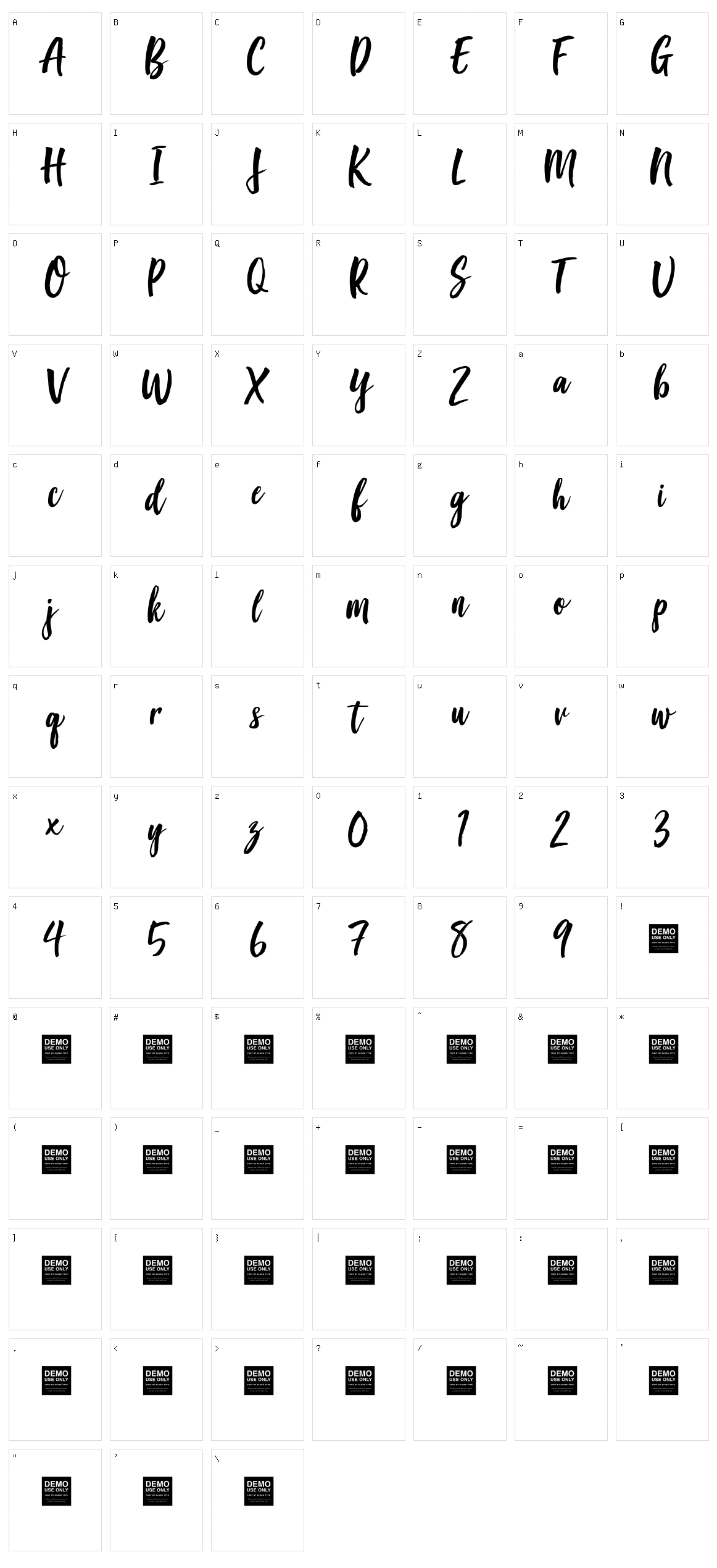
The free font Good Vibes is carefully designed by BLKBK Fonts, showcasing a thoughtful balance of creativity and usability and falls under the Script font style. When you download the ZIP file, it contains only 53.9 KB of font files, making it lightweight and quick to download. Please review the license details below to understand permitted usage and distribution rights. If license information is not available, we recommend using this font for personal projects only or contacting the author directly for commercial usage permissions.